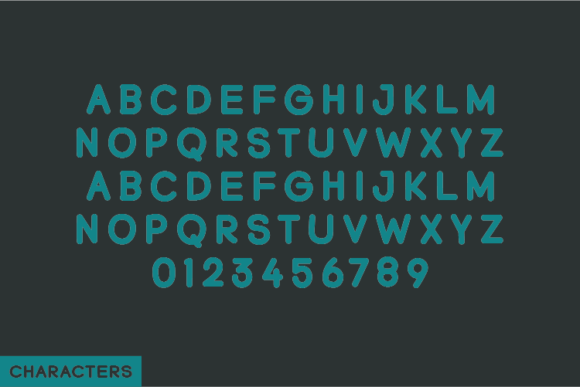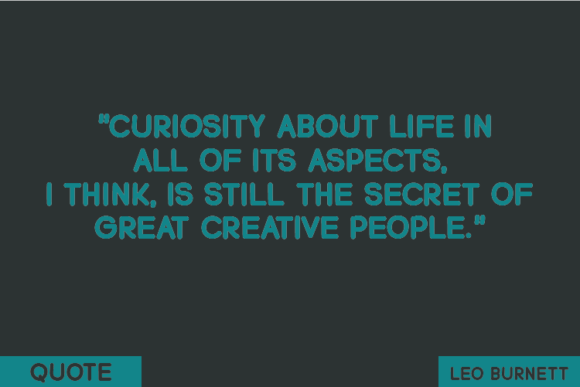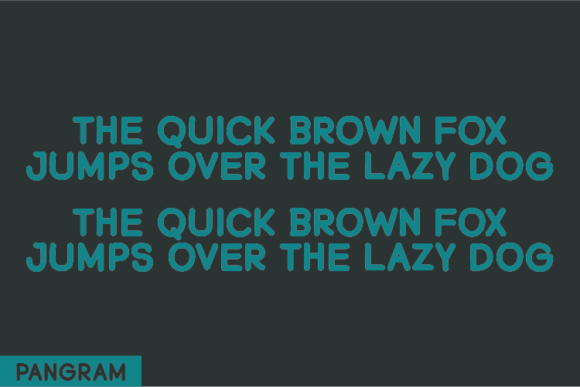
Christian Font
Christian is a natural handwritten font created without changing a single node in each character’s indentation – this makes this font very interesting and unique. Perfect for quotes, notes, tees, and any product design.